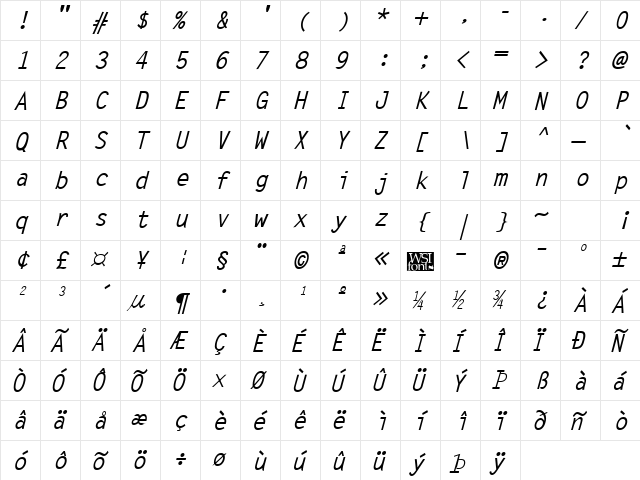
LetterGothic Bold Italic
Design Context for LetterGothic Typeface
LetterGothic takes a clean, functional approach — its unadorned letterforms prioritise legibility and work reliably across screen and print environments. The dynamic lean of this cut emphasises speed and emphasis in any layout. The heavy weight commands attention and anchors typographic hierarchies.
Well-suited to navigation labels, product packaging, and anywhere legibility at scale is essential.
Font Pairing: Use LetterGothic for headlines alongside a lighter-weight sans or serif for body copy to establish clear visual hierarchy.
Pro Tip: Use LetterGothic for UI labels, navigation, and short-form body copy where clean legibility is the priority.